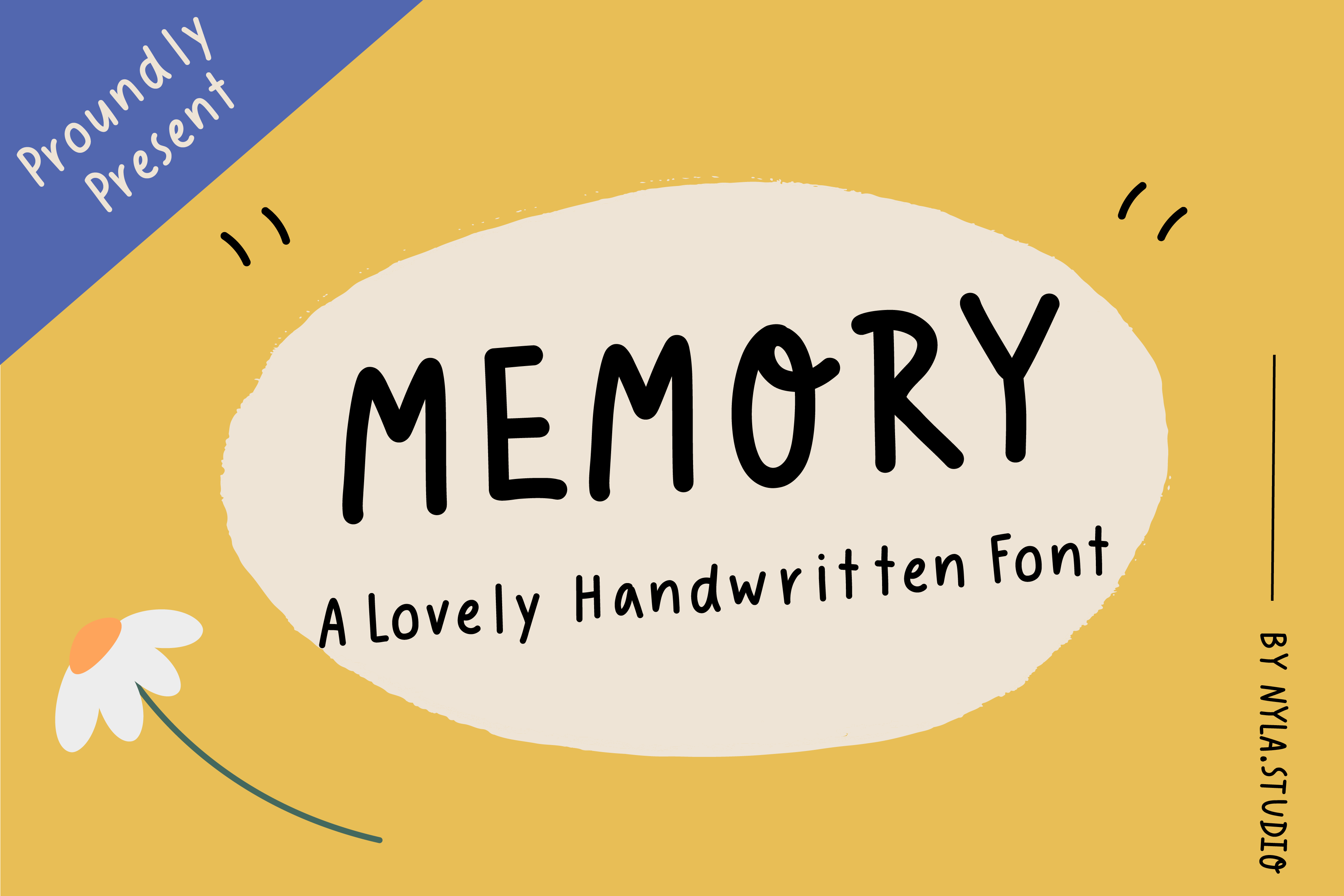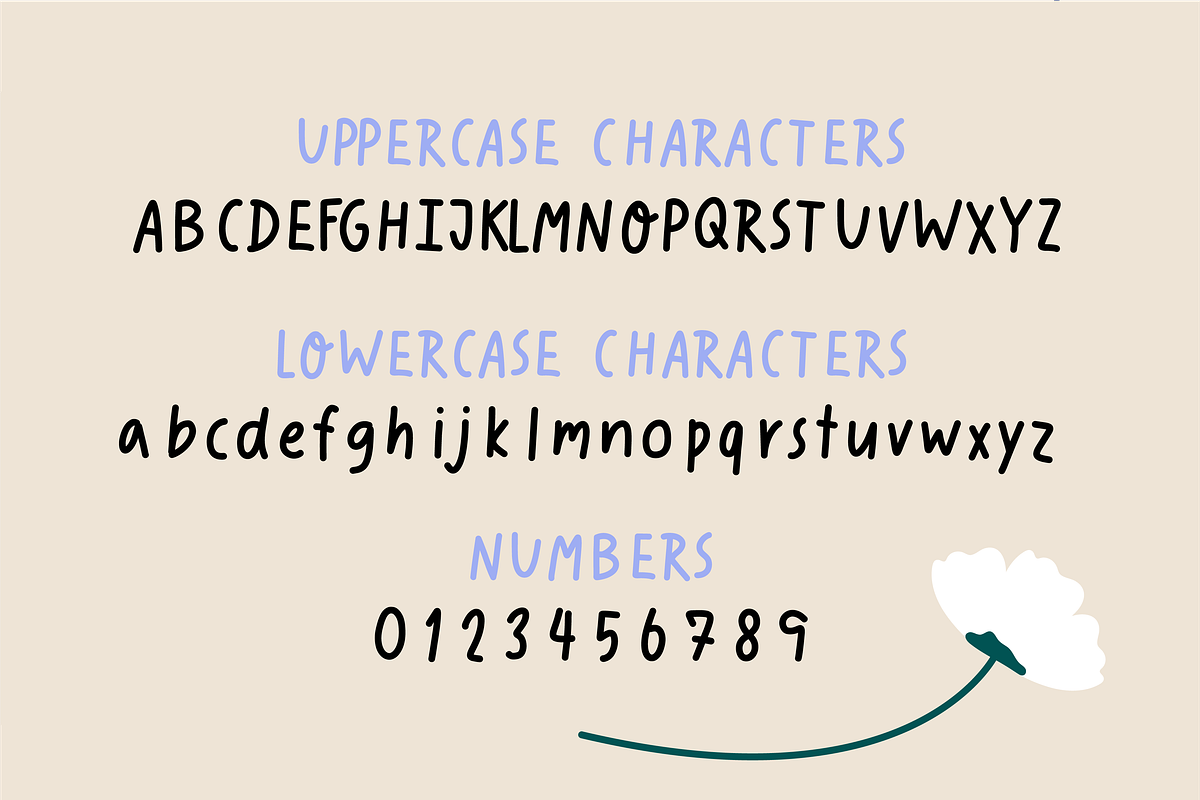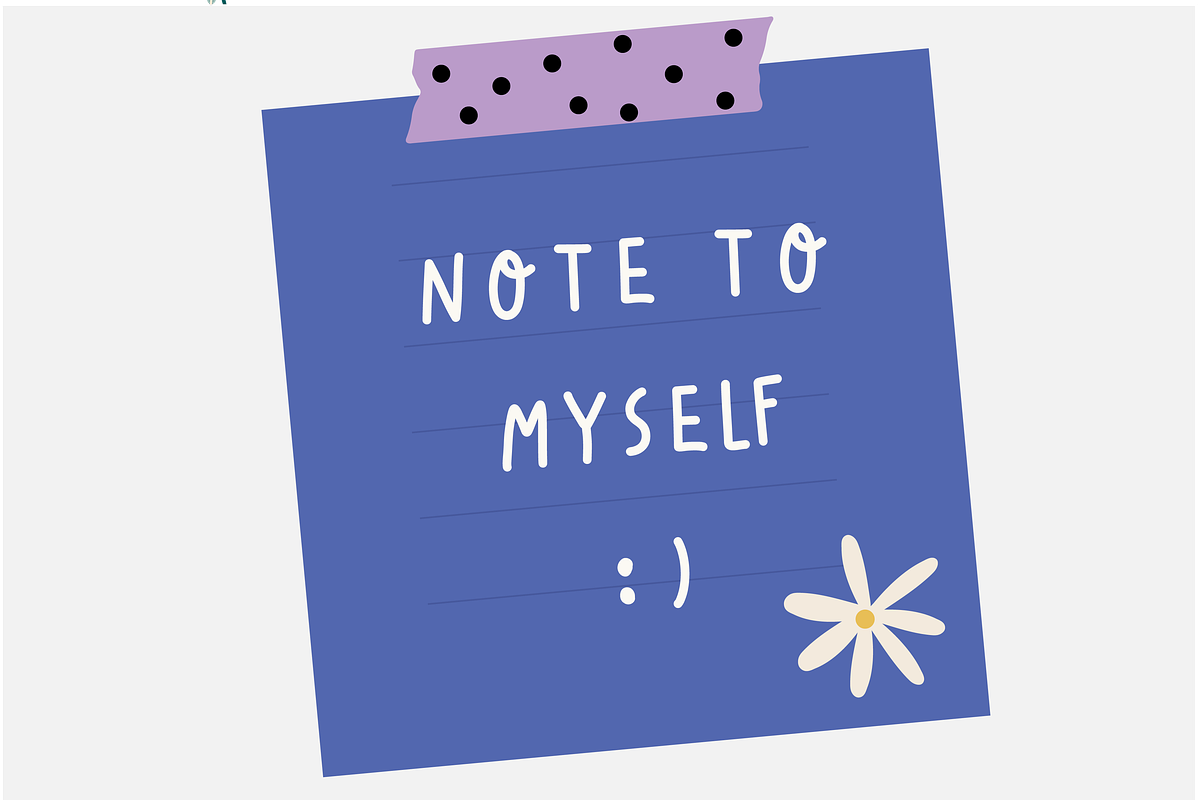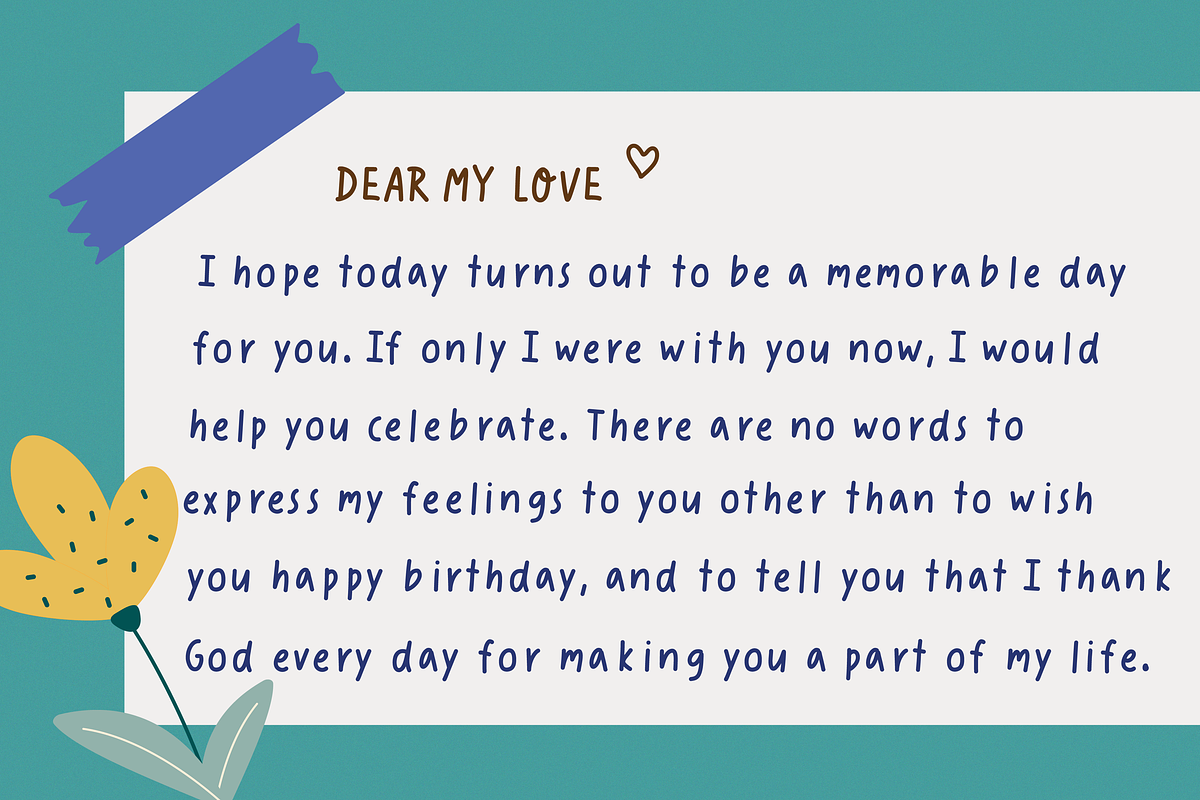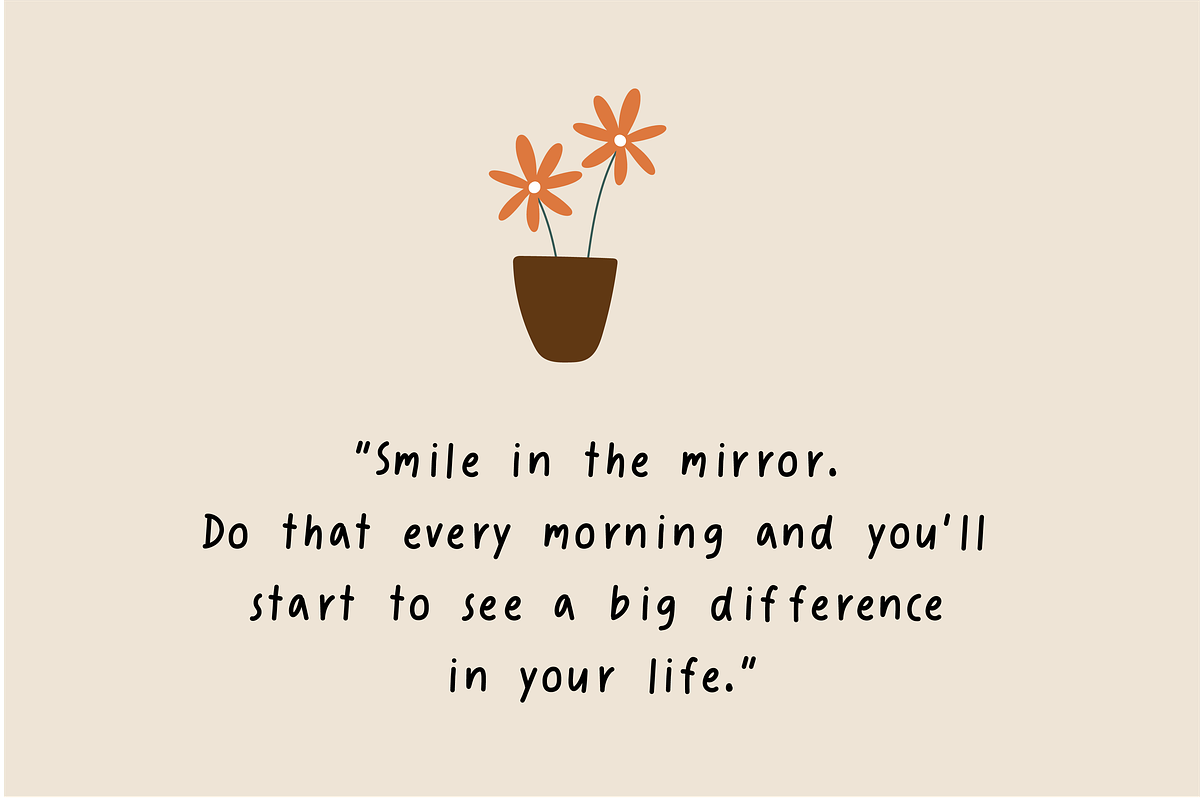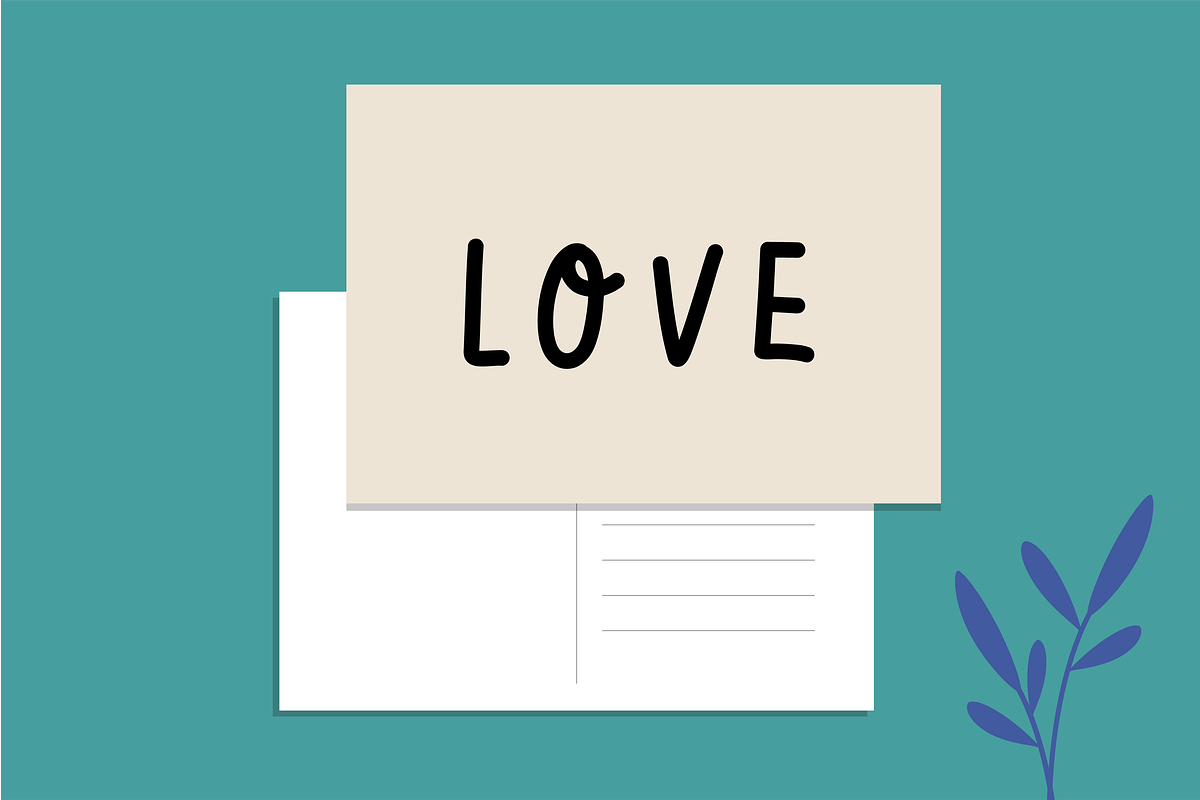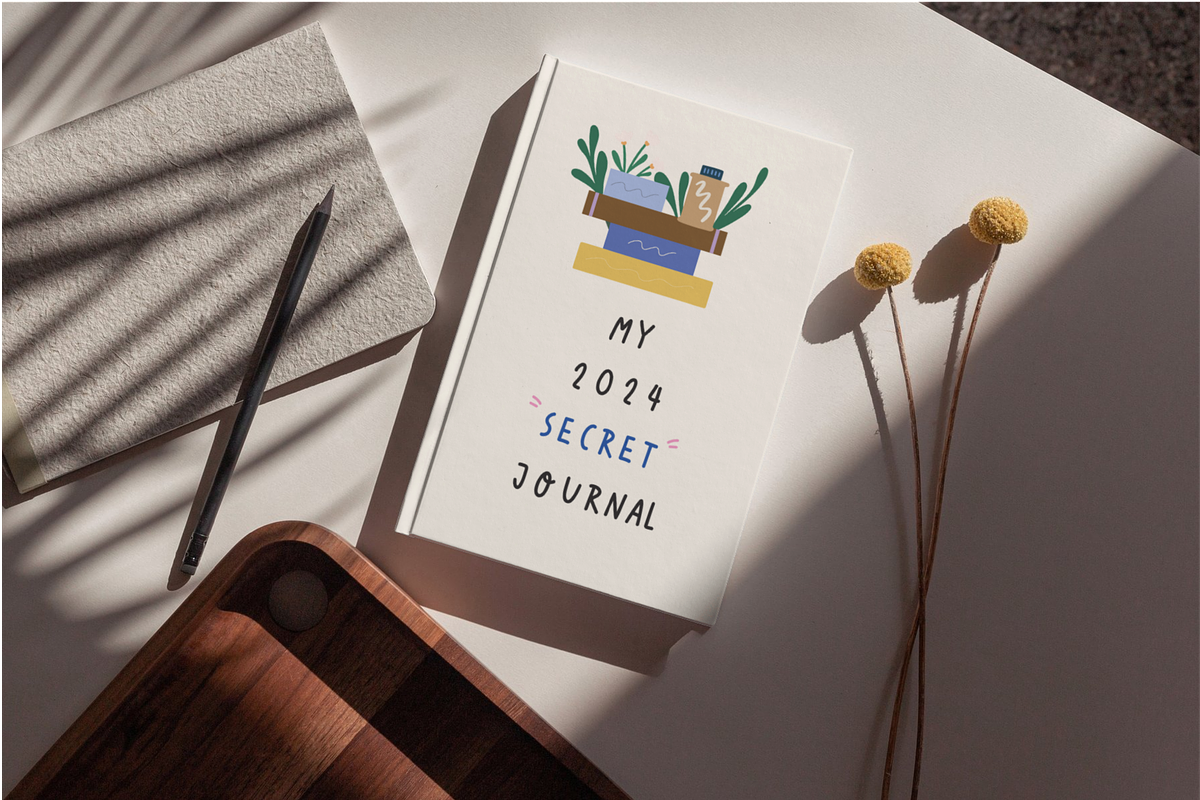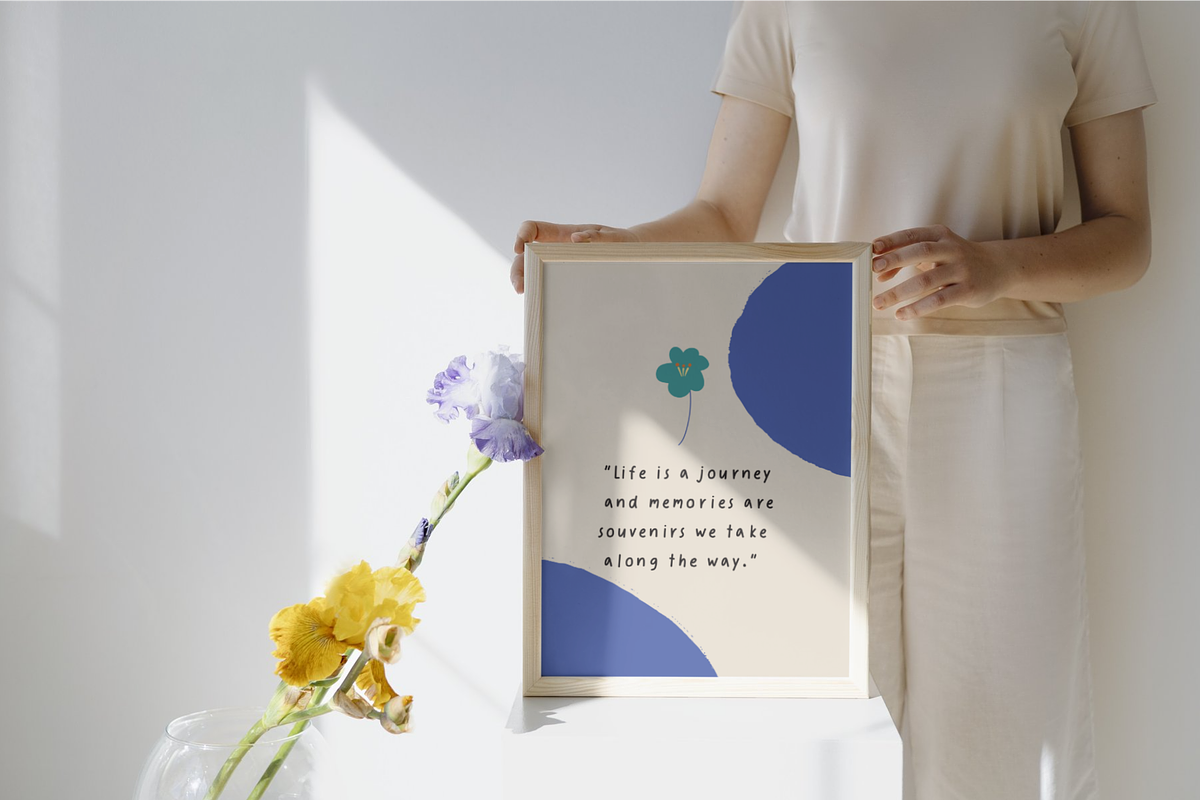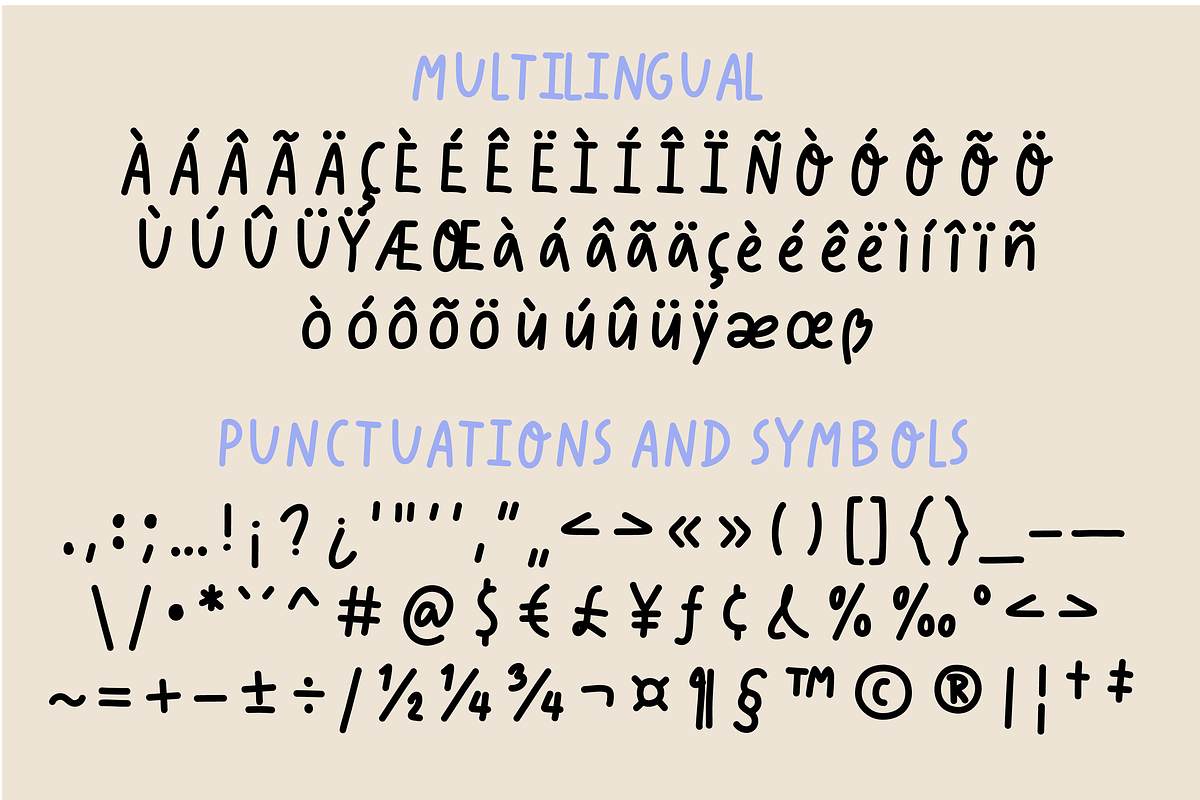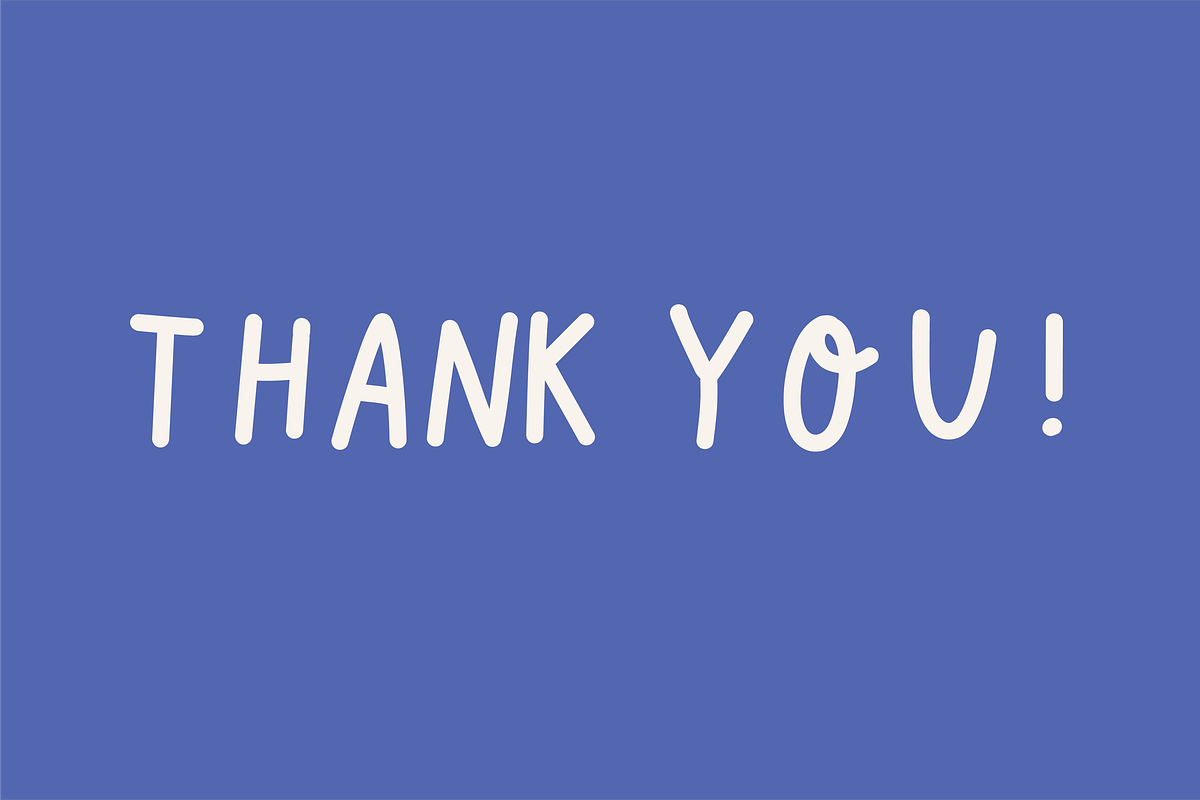
Memory Handwritten Font
MEMORY is a playful handwritten font. Perfect for everyday use such as writing diary or note, creating posters, logos, greeting cards, packaging and so much more!
Memory Font Features:
- Full set of alphabet both uppercase and lowercase.
- Extended punctuation.
- Multilingual Characters support.